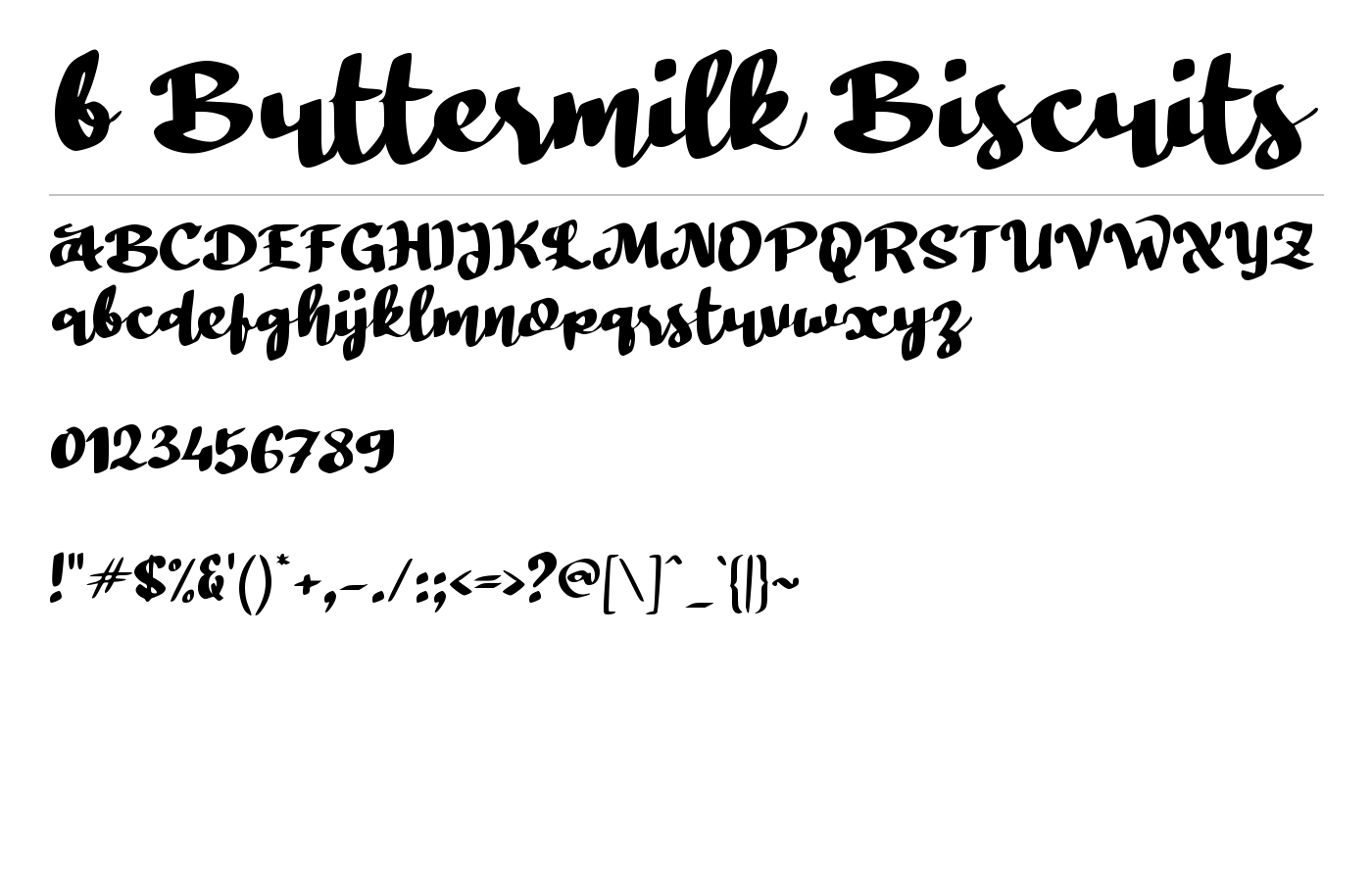
b Buttermilk Biscuits is a bold, brush script font characterized by its lively, hand-painted style with thick, rounded strokes and a casual, friendly feel. Its slightly condensed letterforms and dynamic curves make it perfect for conveying warmth and personality, ideal for branding, packaging, and headlines where a playful yet confident touch is desired. This font stands out in designs seeking an approachable, handcrafted look with a strong visual impact.
b Buttermilk Biscuits Font